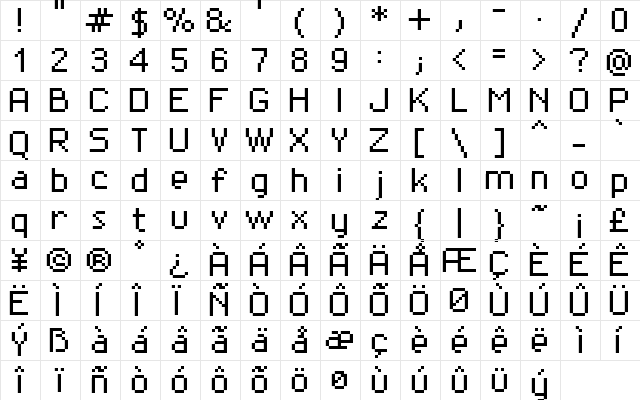
FFF Regates Condensed Regular
Design Context for FFF Regates Condensed Typeface
FFF Regates Condensed takes a measured approach to typography — its balanced proportions and neutral character make it a reliable workhorse for both digital and print work. Its narrow stance lets it pack a punch even in space-constrained designs.